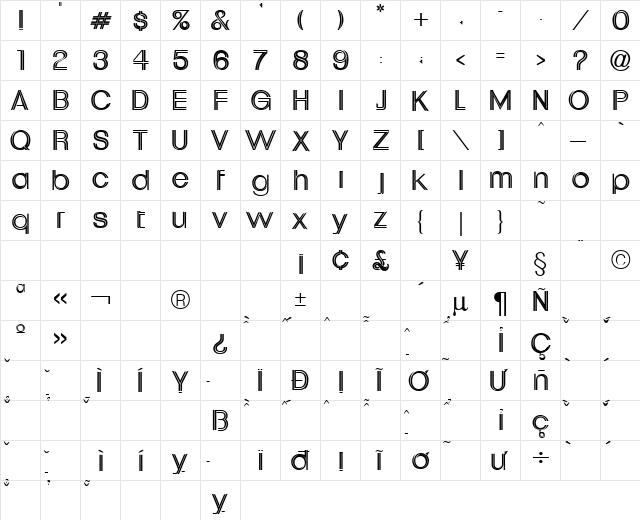
VNI-Uptown Normal Font Preview
VNI-Uptown Normal
VNI-Uptown Normal Font Details
Design Context for VNI-Uptown Typeface
VNI-Uptown is a composed and adaptable typeface that performs quietly and consistently across a wide range of design contexts.